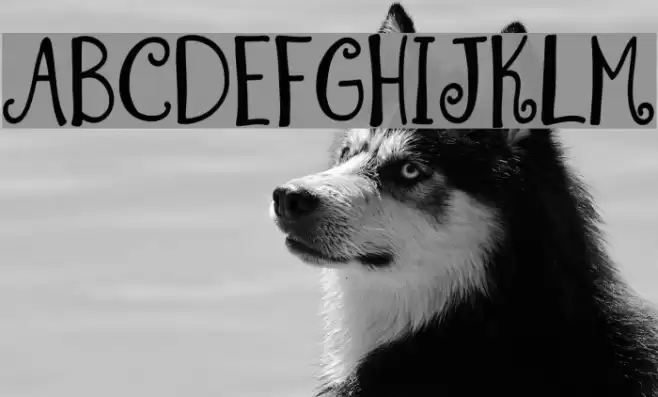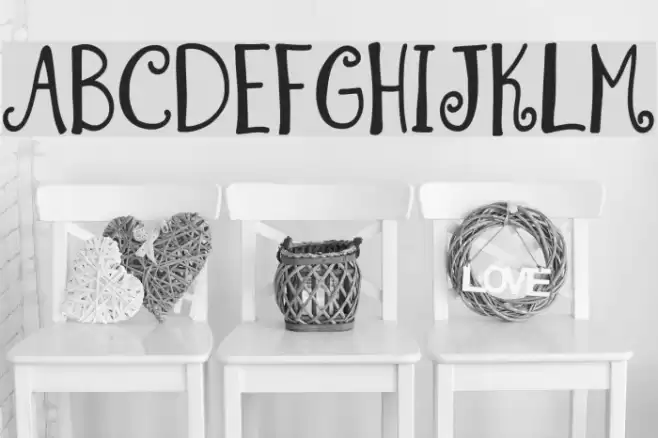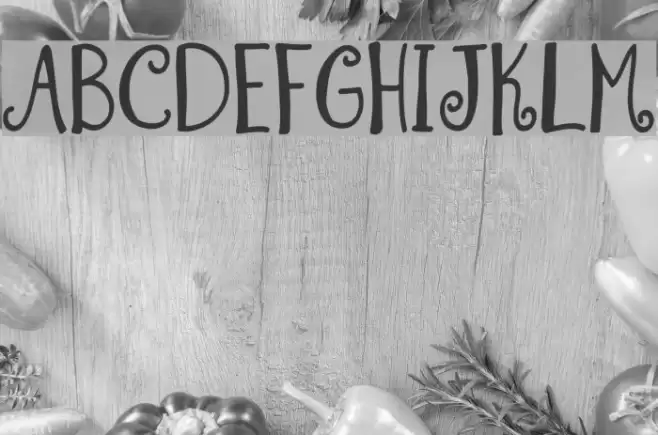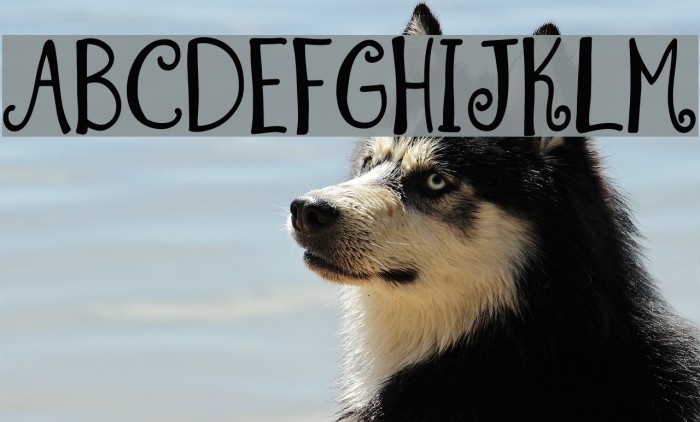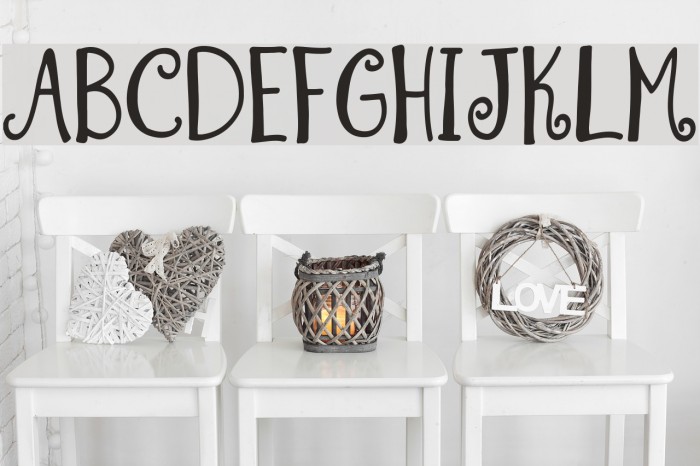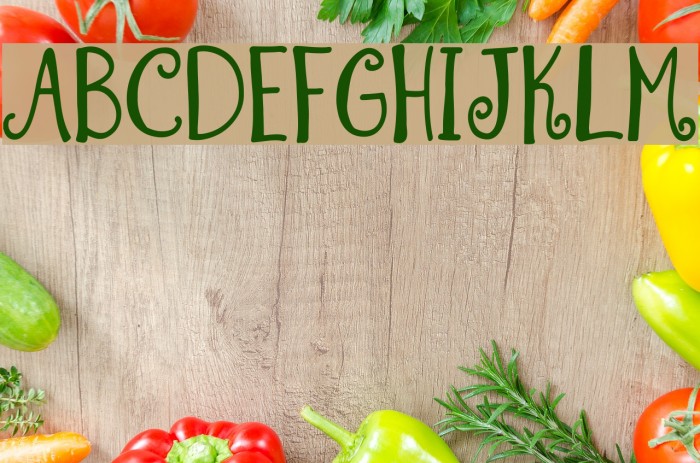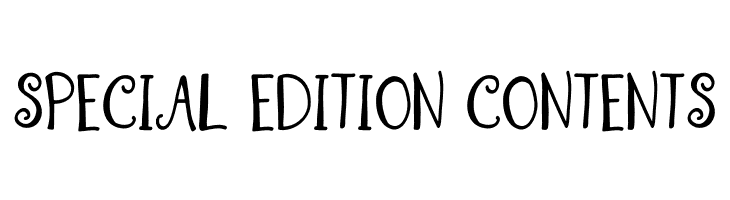
Summer Swirl Demo Font
Summer Swirl Demo Description
This font features a playful and whimsical design, characterized by its curly and swirling elements that add a sense of fun and creativity. The uppercase letters are bold and distinct, with unique flourishes that make each character stand out. The strokes are moderately thick, providing a strong presence while maintaining a light-hearted feel. The overall style is decorative, making it ideal for projects that require a touch of personality and flair. The font's design is consistent throughout, ensuring readability while offering a unique aesthetic.
A playful and whimsical font with curly, swirling elements from Curly fonts.
- Proposed Projects: Ideal for children's books, greeting cards, playful branding, and creative posters.
- Overall Style: Playful and Whimsical
- Use Case: Headlines, Logos, Creative Projects